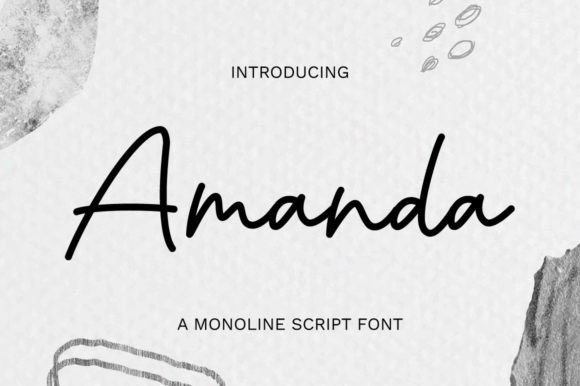
The Amanda Font: A Timeless Handwritten Treasure
So, what makes Amanda font so special? Let’s dive into the good stuff and a few quirks I’ve discovered.
- ✨ Elegant and timeless handwritten feel
- ✅ Highly legible, even at smaller sizes
- 🎨 Versatile and adaptable to various design projects
- 💫 Beautifully crafted with attention to detail
While Amanda font is an excellent choice, there are a few things to keep in mind:
- 🤔 Limited availability of certain OpenType features
- ⚠️ May not be the best choice for very long texts or body copy
- Explore the font’s glyphs and OpenType features, such as swashes and alternates, to add creative flair
The Designer Inspiration Behind Amanda Font
Amanda font was designed with the intention of creating a timeless, handwritten font that would evoke a sense of warmth and elegance. The designer aimed to craft a font that would be versatile and adaptable to various design projects, from logos and branding to quotes and creative writing.
| Font Name | Amanda Font |
| Author | Nirmala Creative |
| What is the best use for Amanda font? | Amanda font is ideal for creating eye-catching logos, branding, and quotes. Its elegant and timeless handwritten feel makes it perfect for creative projects and designs that require a touch of sophistication. |
| Is Amanda font suitable for body copy? | While Amanda font is highly legible, it may not be the best choice for very long texts or body copy. It’s better suited for titles, headings, and short paragraphs. |
| Does Amanda font support OpenType features? | Yes, Amanda font supports some OpenType features, such as ligatures and stylistic alternates. However, the availability of certain features may be limited. |